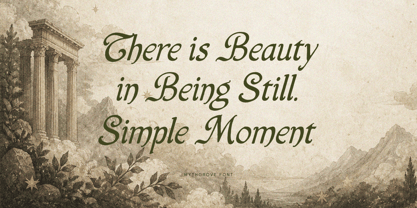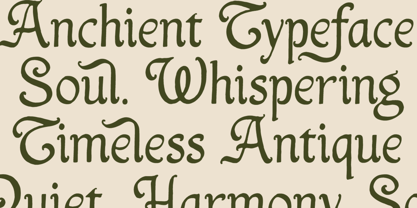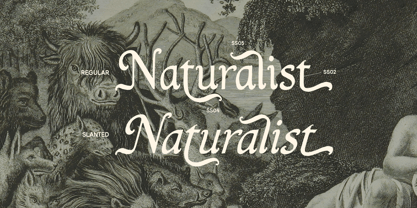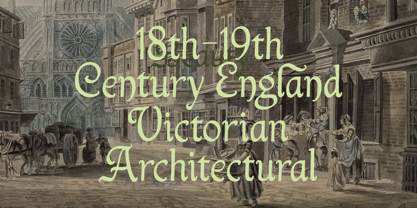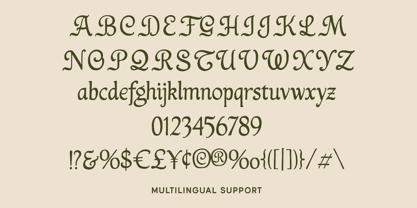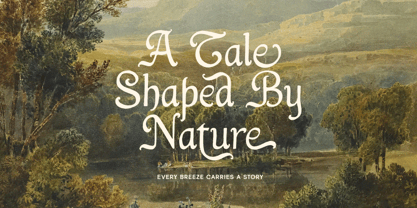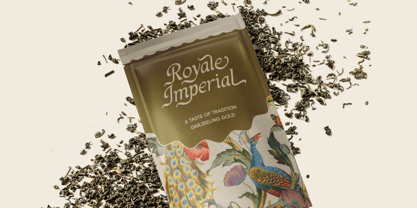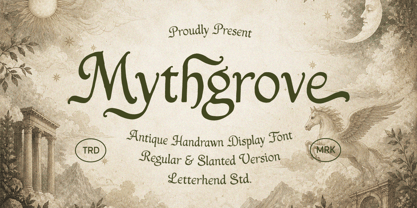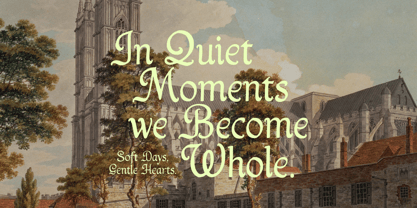
Mythgrove
von Letterhend
Die Schriftfamilie Mythgrove wurde von Hendry Juanda entworfen und von Letterhend veröffentlicht. Mythgrove enthält 2 Stile und Familienpaketoptionen. Mehr über diese Familie
Mythgrove feels like an old story whispered through ancient forests, blending antique hand-drawn shapes with soft fantasy curves and gothic vintage charm. The letters carry a magical medieval touch while still feeling playful and readable, making every word look rich with mystery and adventure.
Designer: Hendry Juanda
Foundry: Letterhend